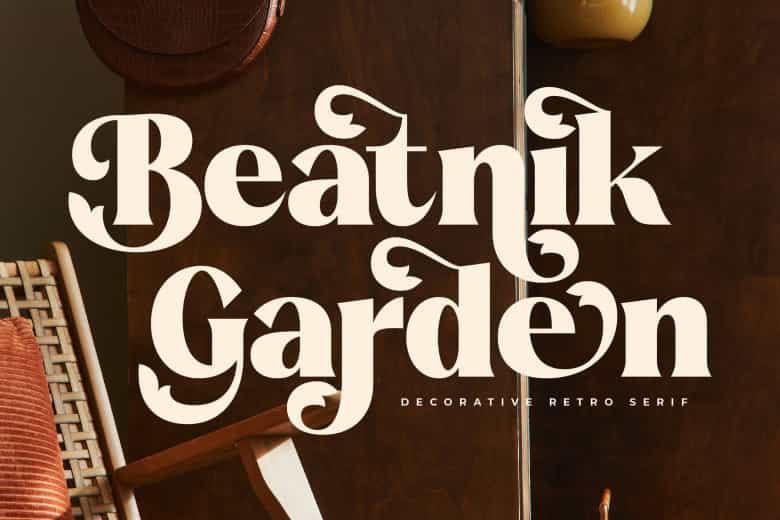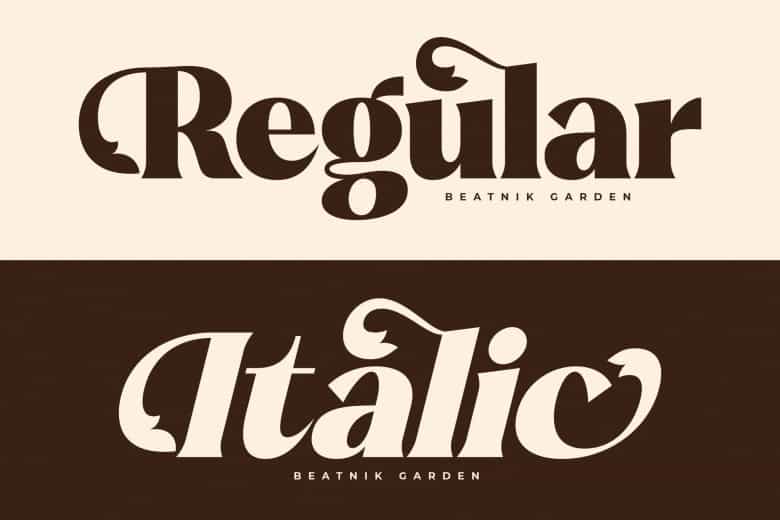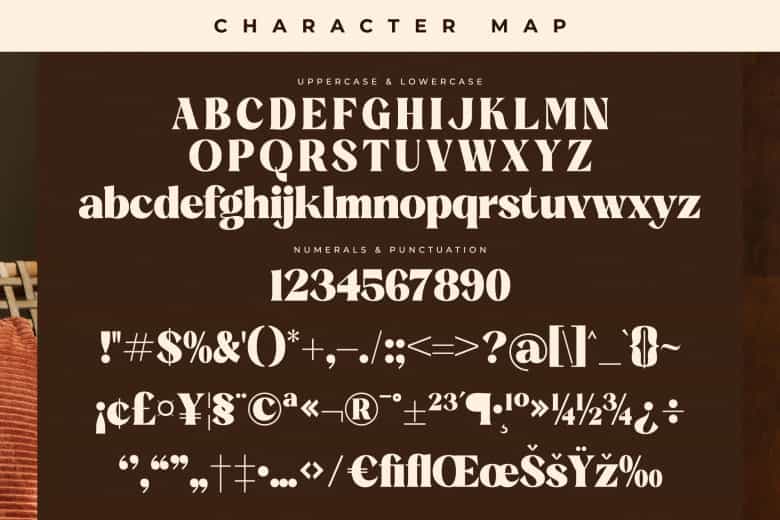
Beatnik Garden Font
Beatnik Garden from Letterena is an elegant Luxury Serif font suitable for use in any creative project, such as logos, branding ideas design, homeware packaging for products such as mugs with quotes for shopping bags as well as posters books t-shirts invitation cards name cards greeting cards labels watermarks photography special events photography projects with elegant serif flair! This font can add sophistication and beauty to your work!